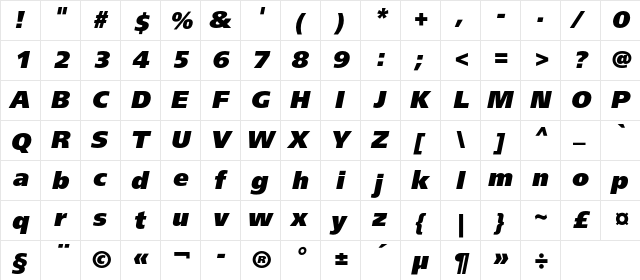
FreeSetExtraBoldC Italic
Design Context for FreeSetExtraBoldC Typeface
FreeSetExtraBoldC offers clean, dependable letterforms without strong stylistic allegiance, making it a practical choice for designers who need flexibility. The slanted form adds forward momentum and visual energy. The heavy weight commands attention and anchors typographic hierarchies.
Pro Tip: Use FreeSetExtraBoldC for emphasis, pull quotes, and subheadings where its slanted energy can add rhythm to the layout.